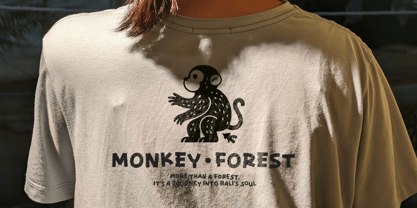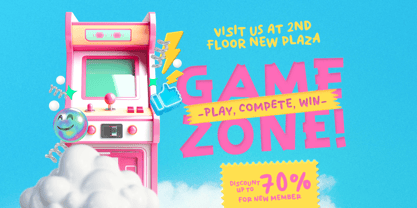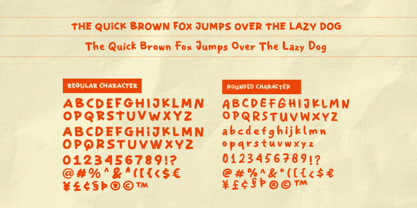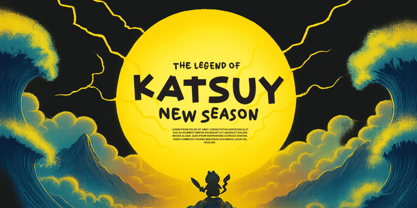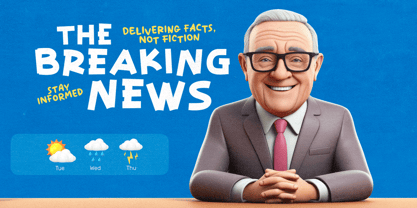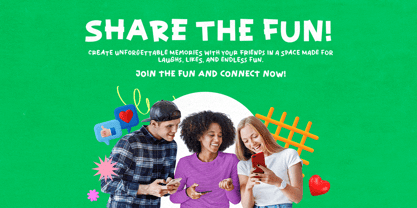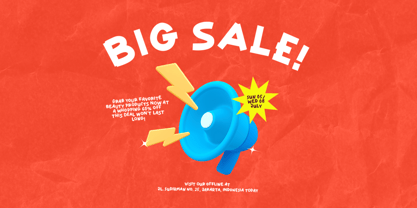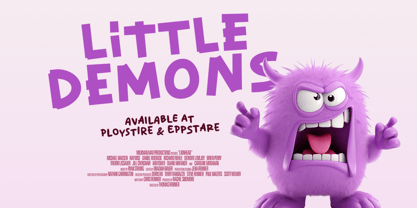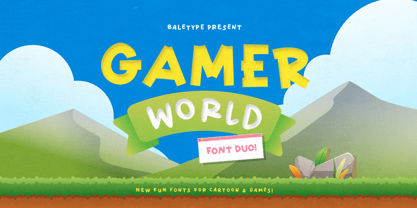
Gamer World
by Bale Type
The Gamer World Font Family was designed by Dzikrul Aulia and published by Bale Type. Gamer World contains 2 styles and family package options. More about this family
Introducing Gamer World – a fun and playful font duo designed to bring excitement and creativity to your projects! This unique typeface set includes two complementary styles: a bold, modern Sharp Sans and a soft, friendly Rounded Handwritten font. Use them individually for clean, eye-catching designs or combine them for a dynamic and engaging look. Gamer World is perfect for a wide range of creative work including apps, games, quotes, posters, and branding. Whether you're designing for digital or print, this font duo adds personality and versatility to every project. Plus, it comes with multilingual support, making it easy to create content that connects with audiences around the globe.